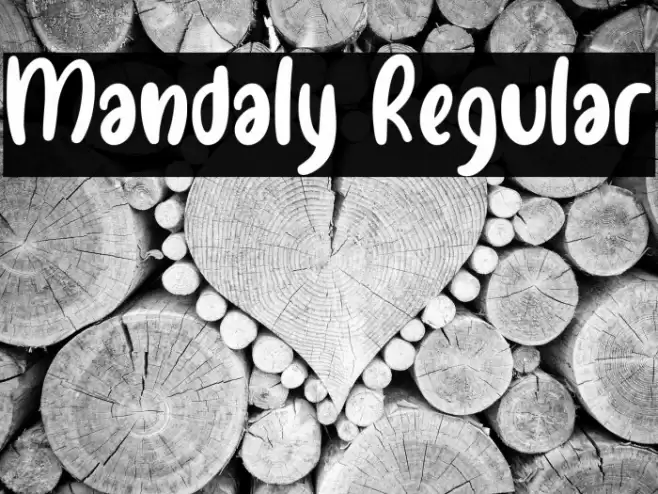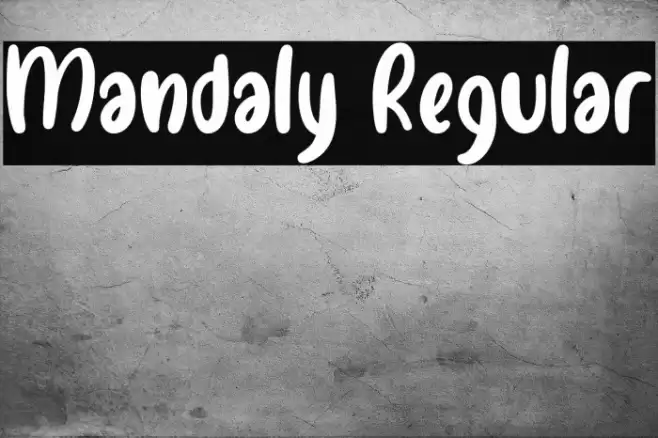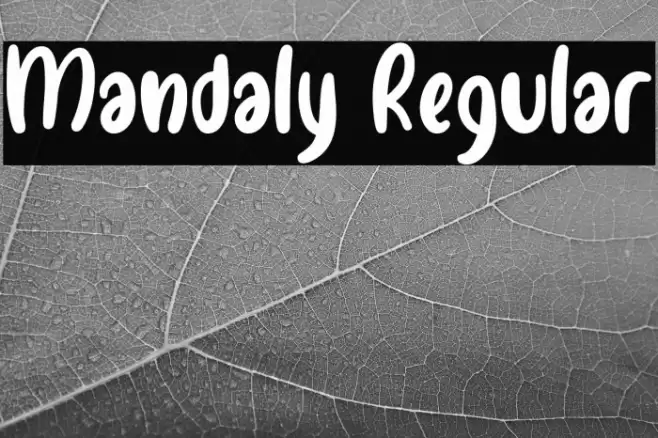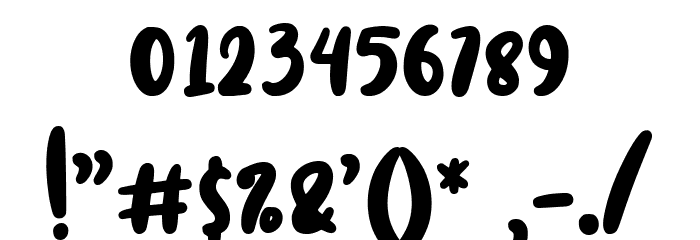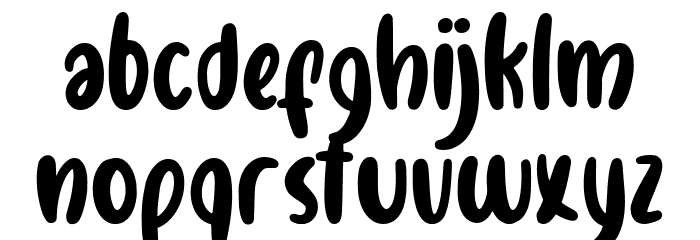
Mandaly Regular Font
Mandaly Regular Description
This playful and bold font features rounded, smooth edges with a handwritten style that exudes a casual and friendly vibe. The characters are slightly condensed, giving a compact appearance while maintaining readability. The uppercase and lowercase letters are consistent in style, with a whimsical touch that adds personality. Numbers and special characters follow the same design ethos, making them cohesive with the alphabet. The font's overall appearance is lively and approachable, suitable for projects that require a personal and informal tone.
A playful, bold handwritten font with rounded edges and a friendly vibe from Cartoon fonts.
- Proposed Projects: Ideal for children's books, greeting cards, playful branding, and social media graphics.
- Width: Condensed
- Overall Style: Casual
- Use Case: Logos, Headlines, Informal Text